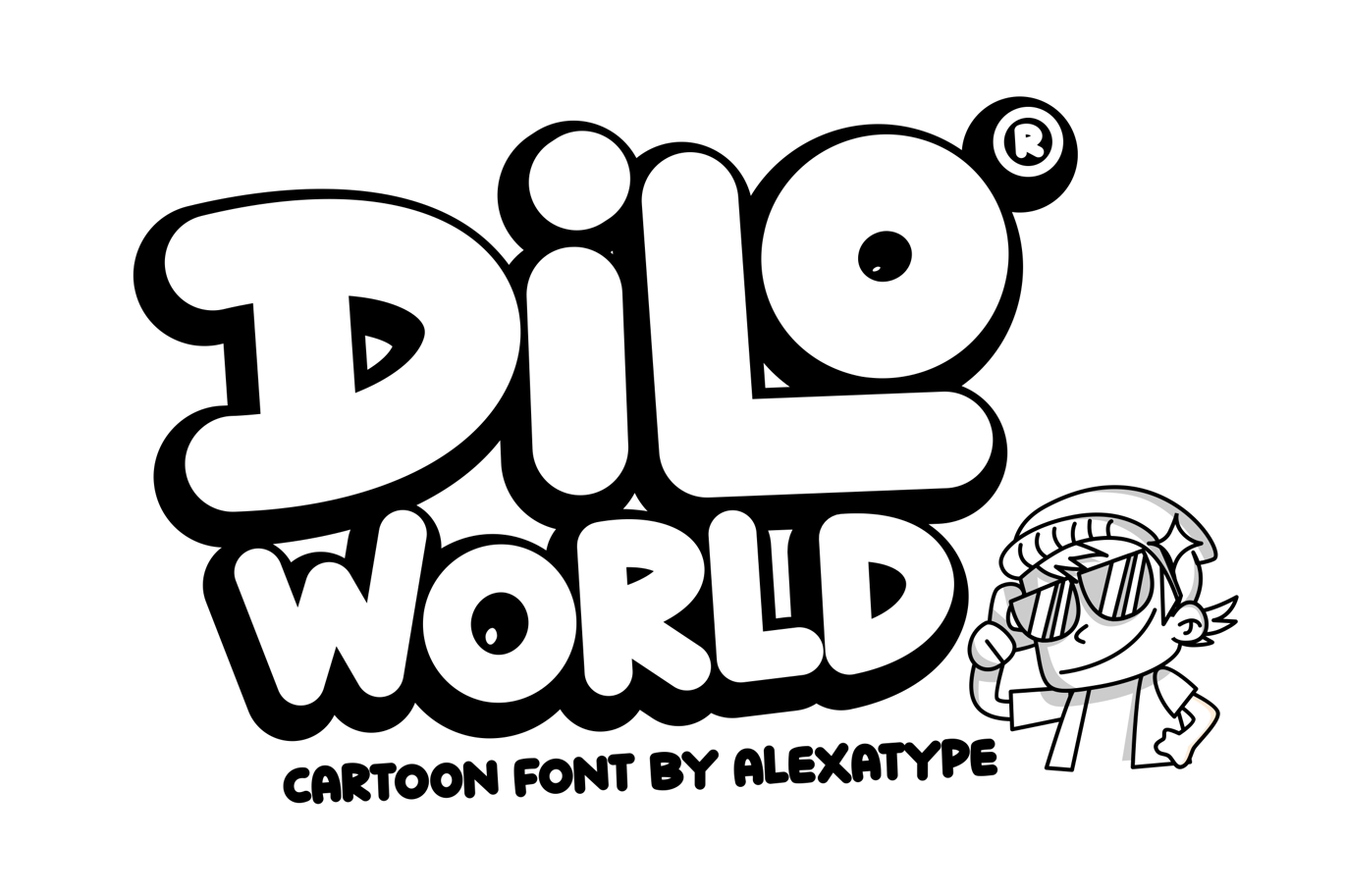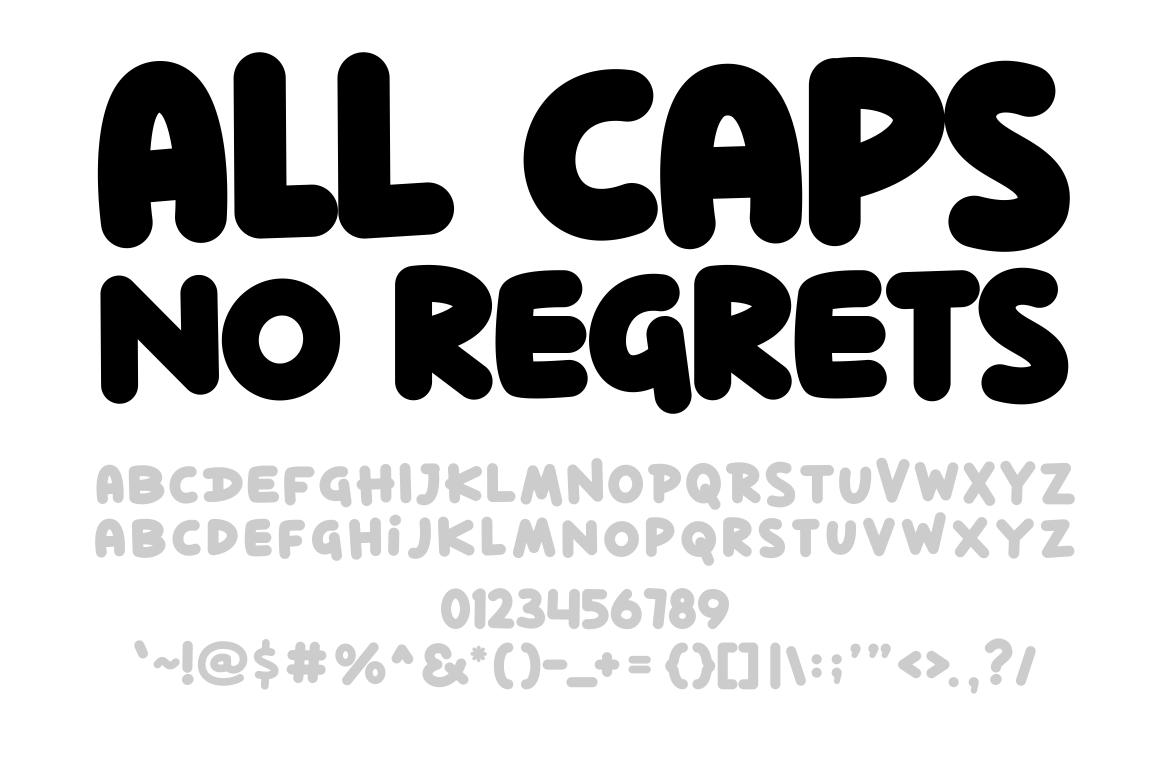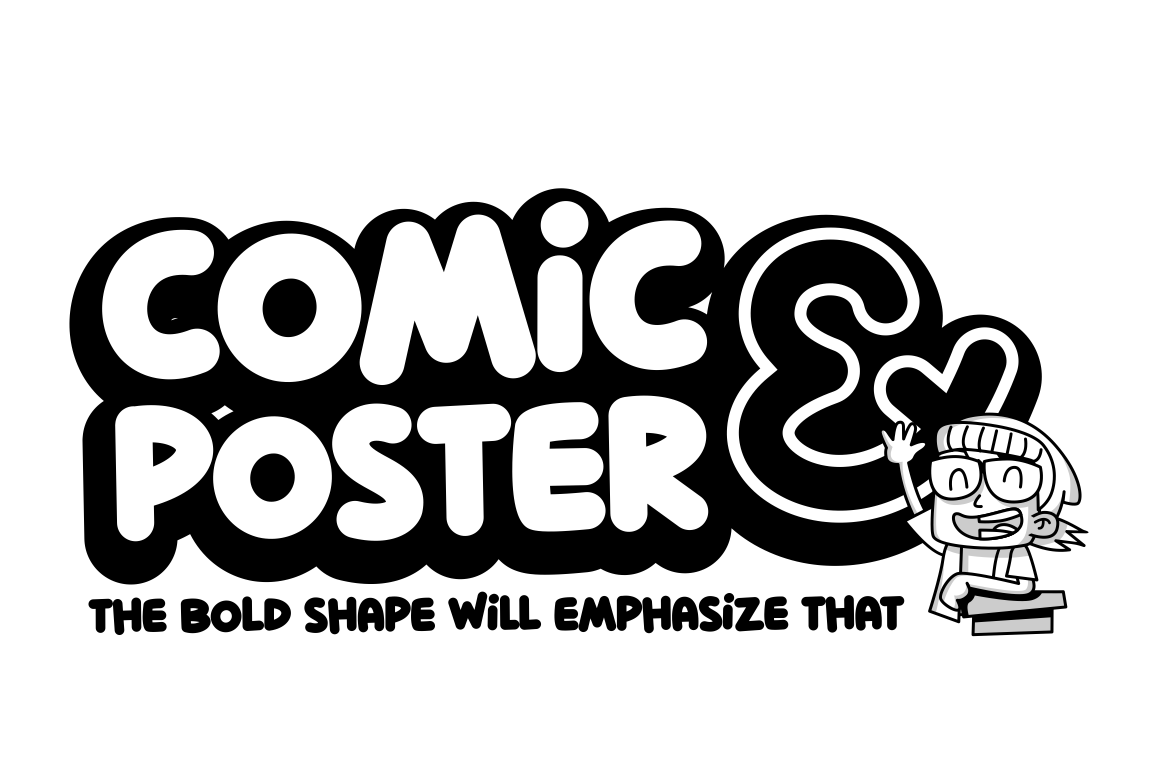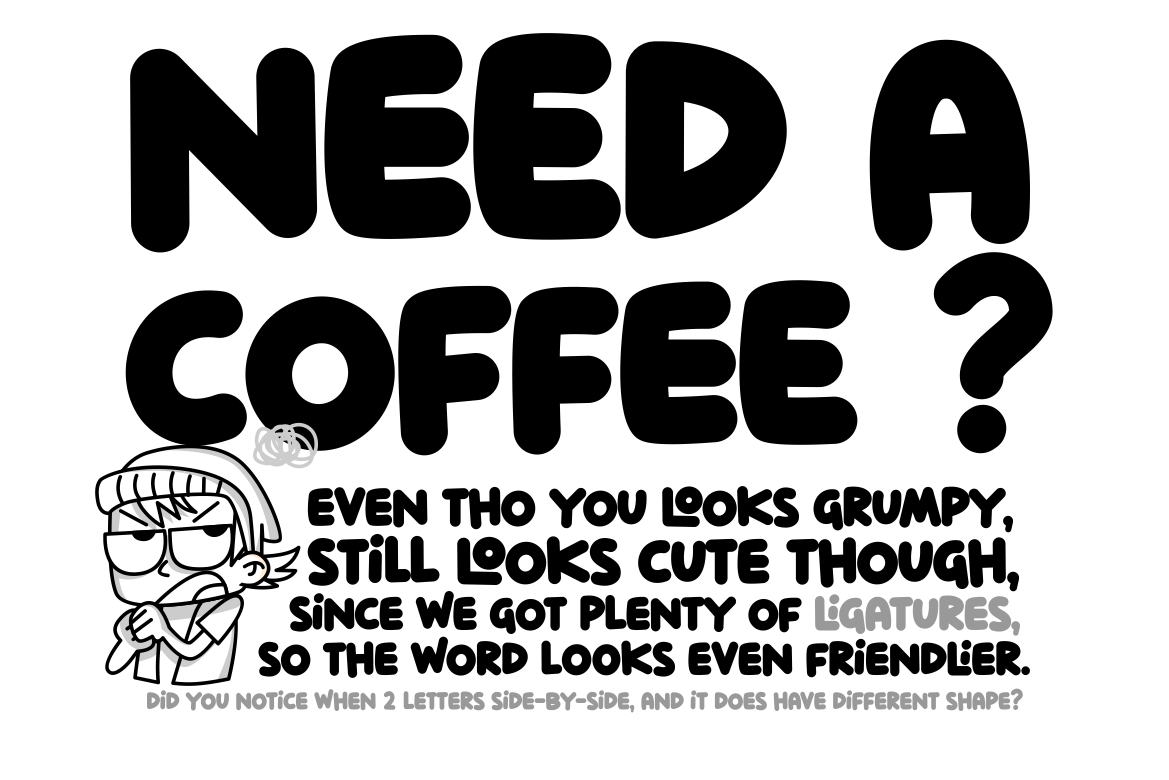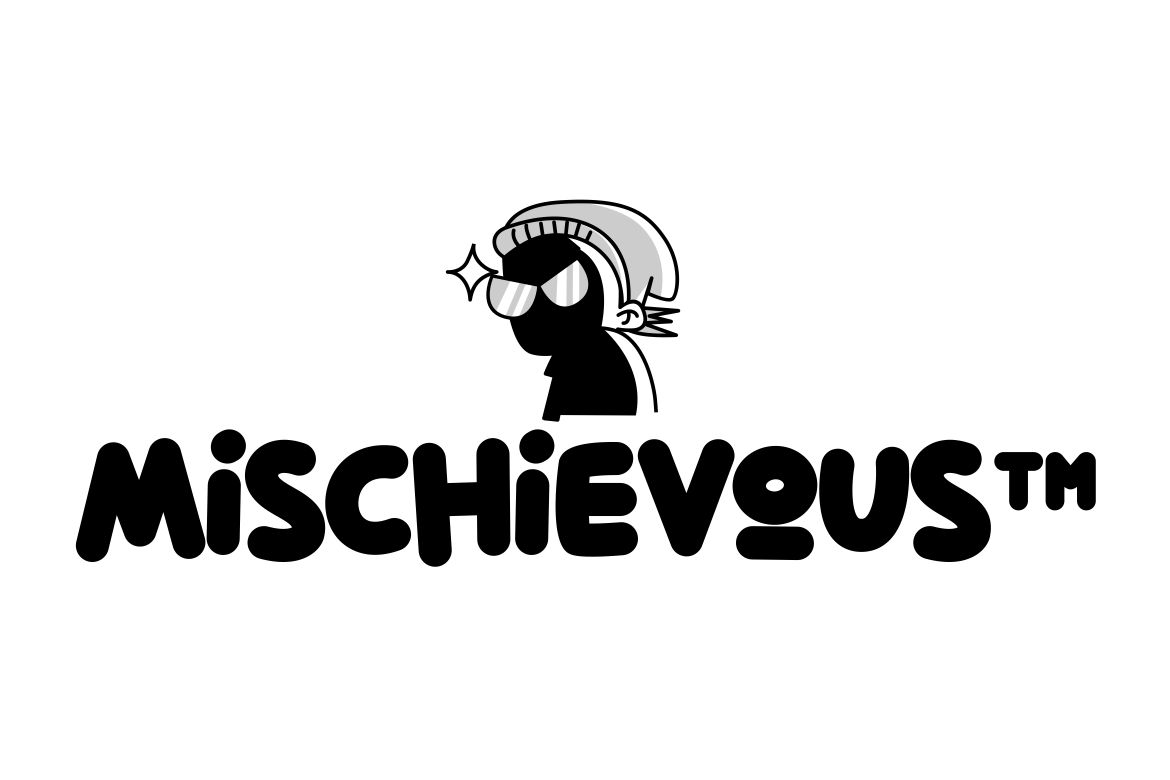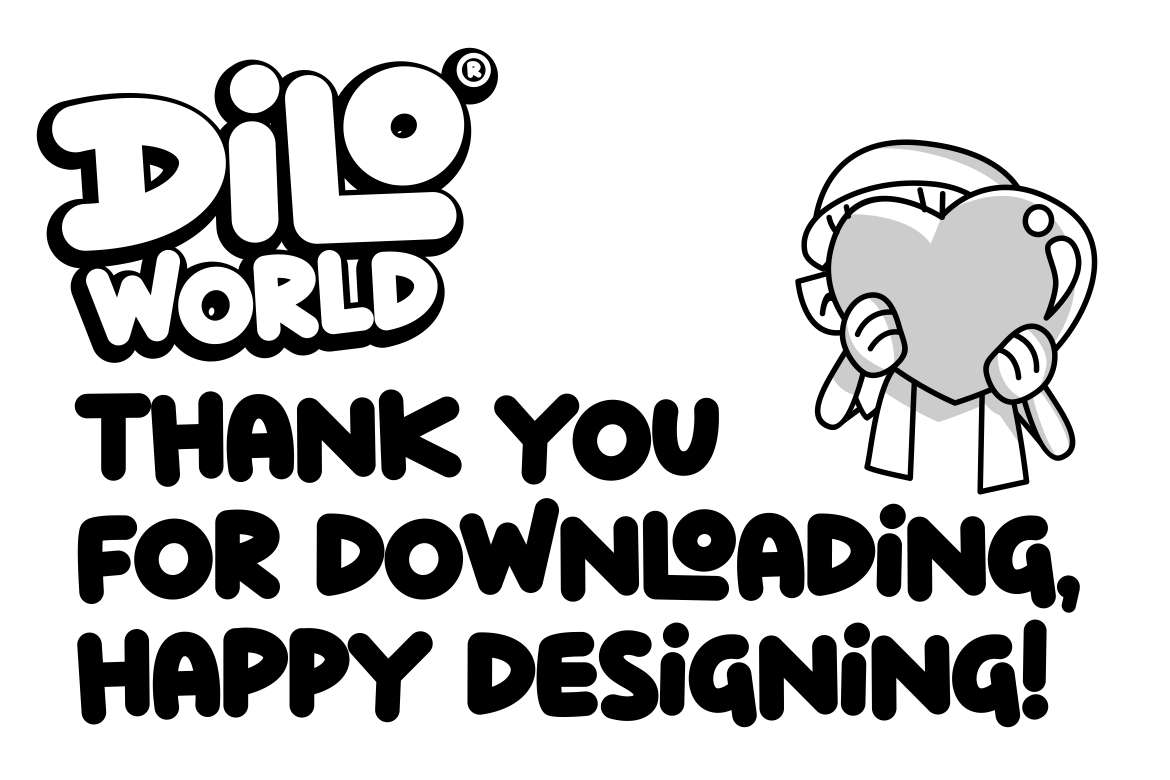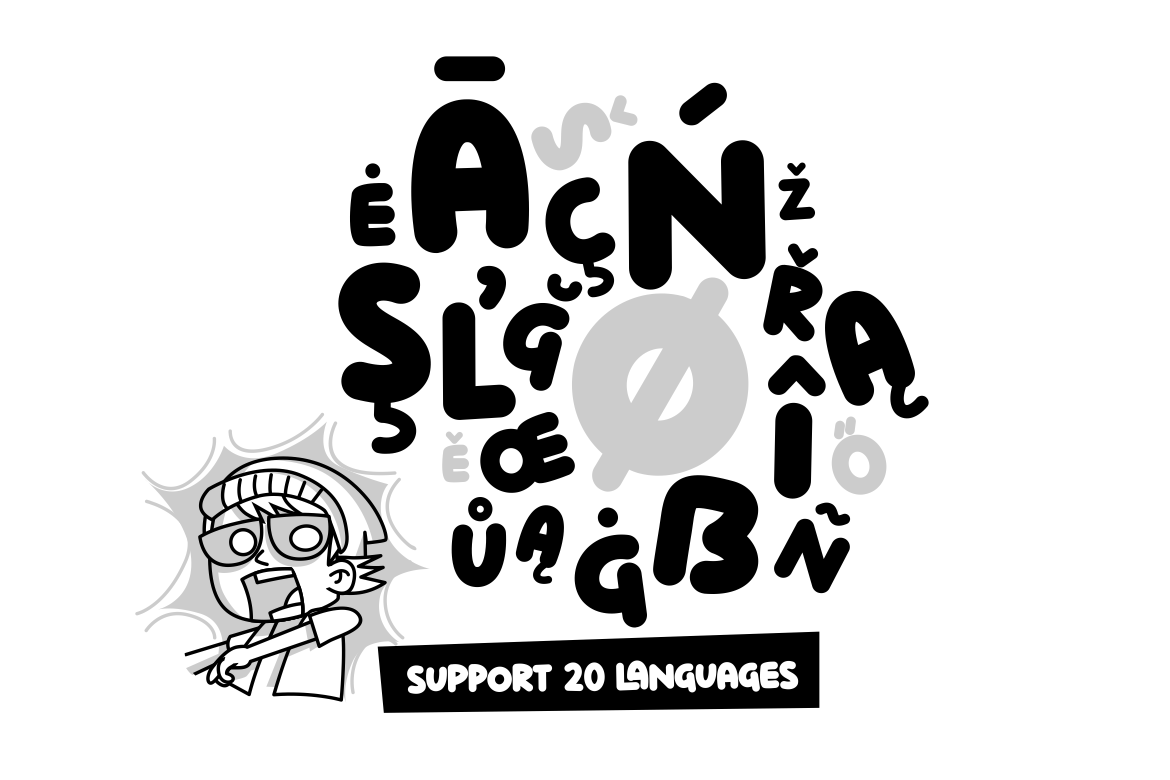
Dilo World – Cartoon font
Introducting Dilo World
Dilo World is a bold, all caps font that has cartoon and comic looks in it.
Rounded corner and bouncy baseline makes the goofy and friendly feeling more shown in each word written by it.
If you need a punchlines on your poster, website header, packaging, t-shirt, and anything that need a shout out, then Dilo World is the answer.